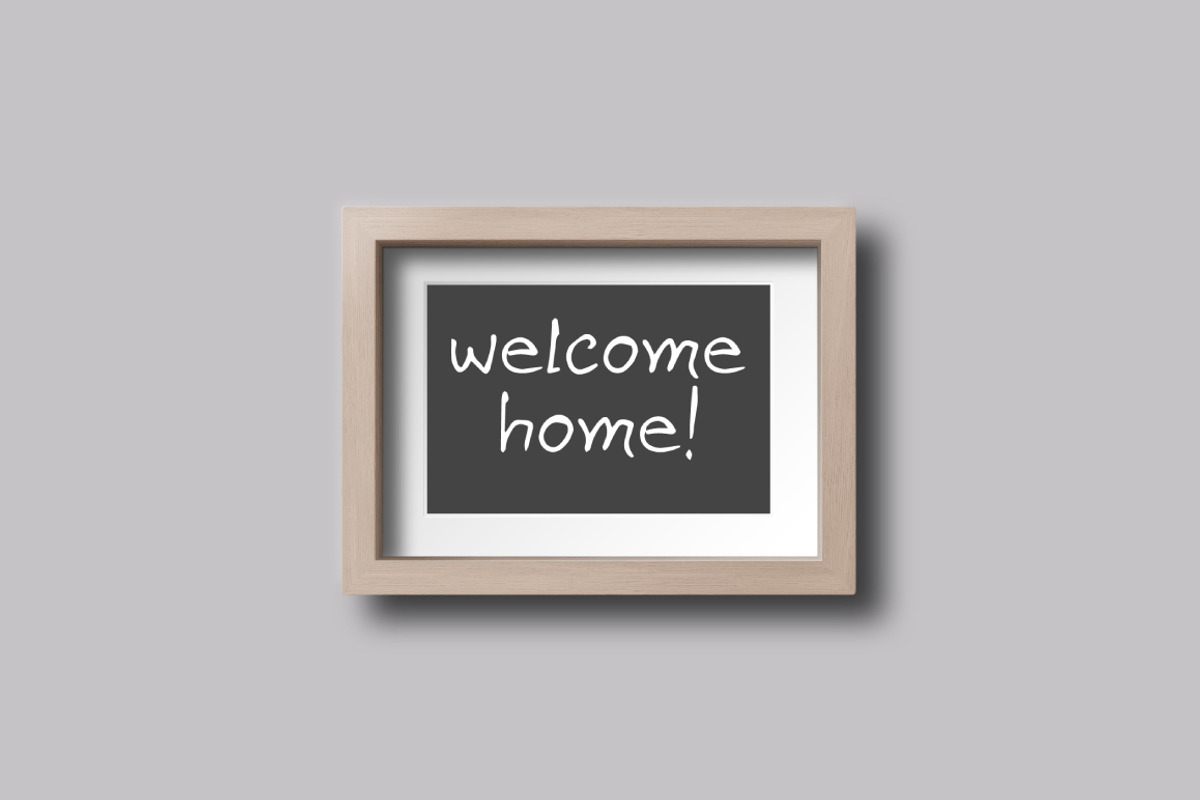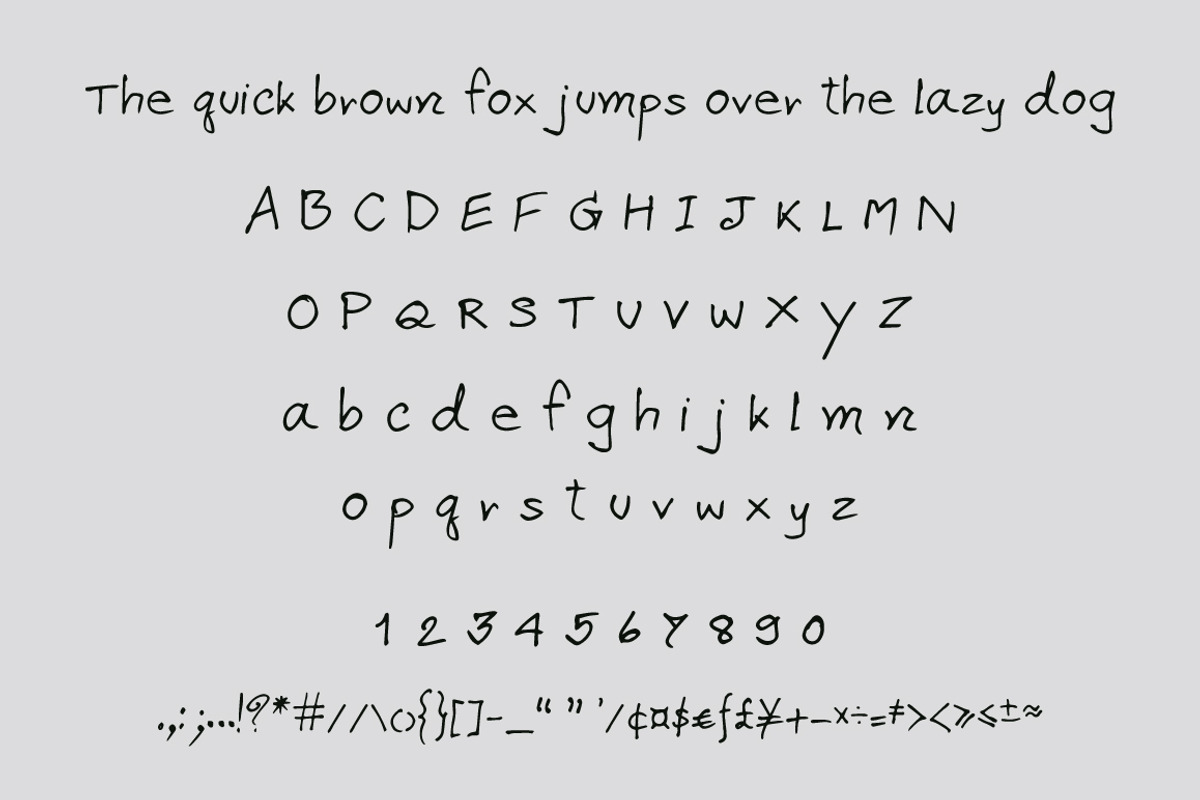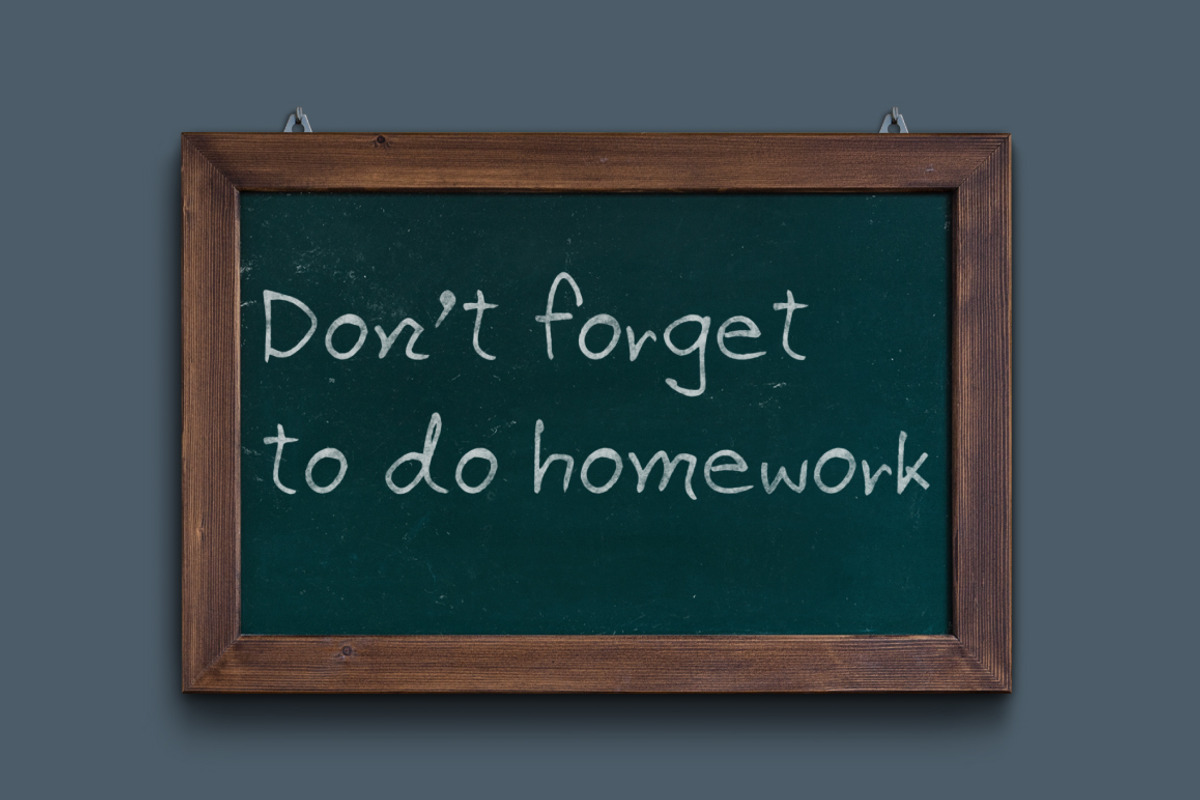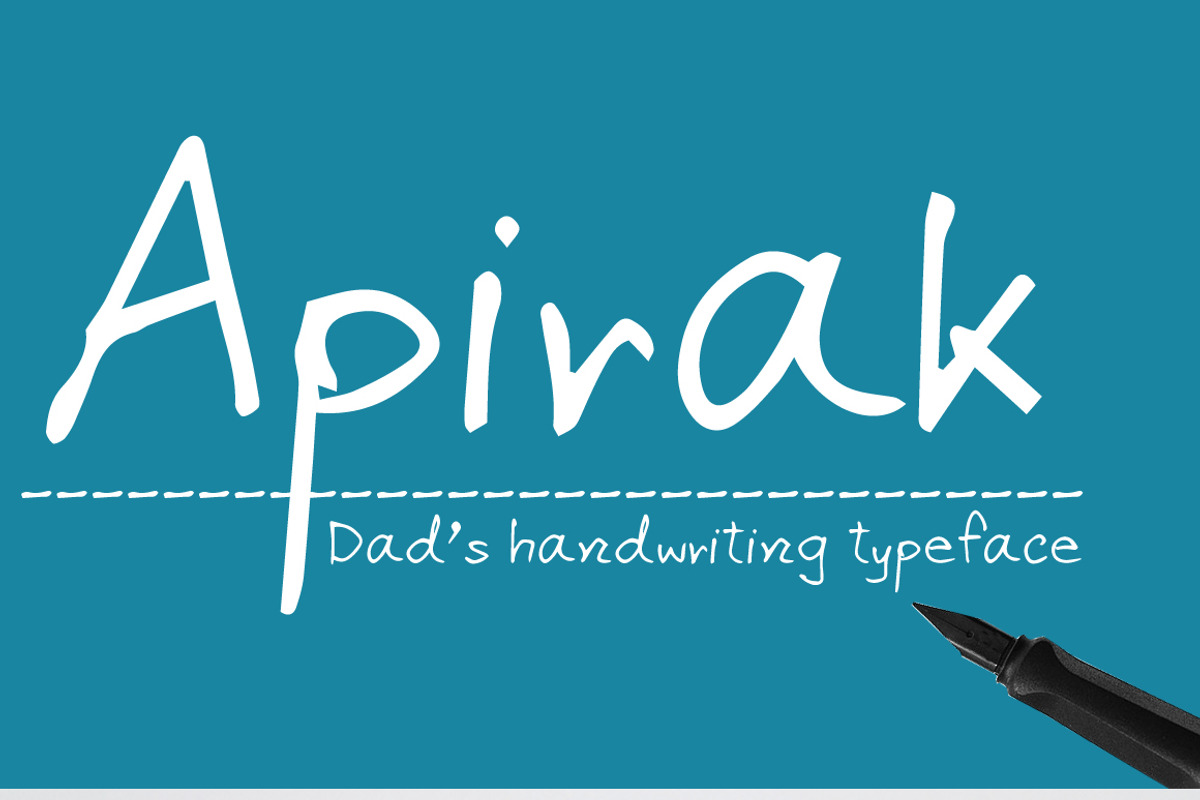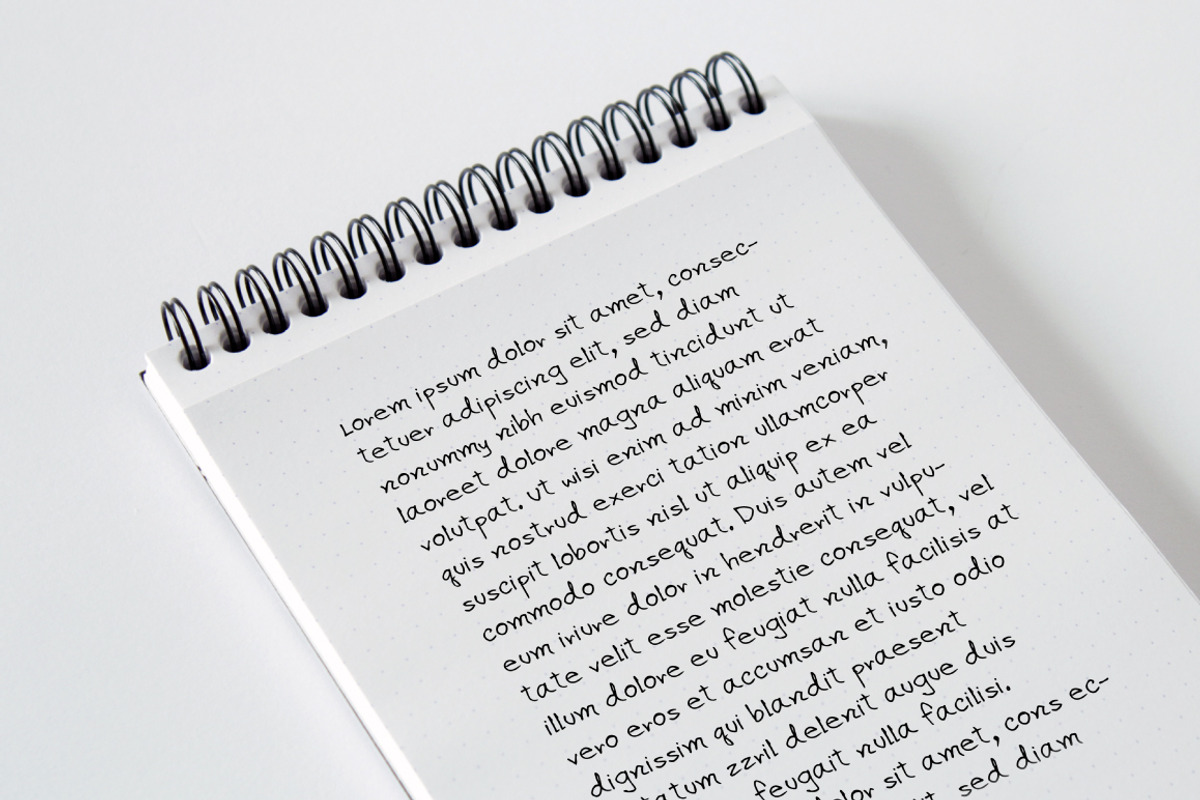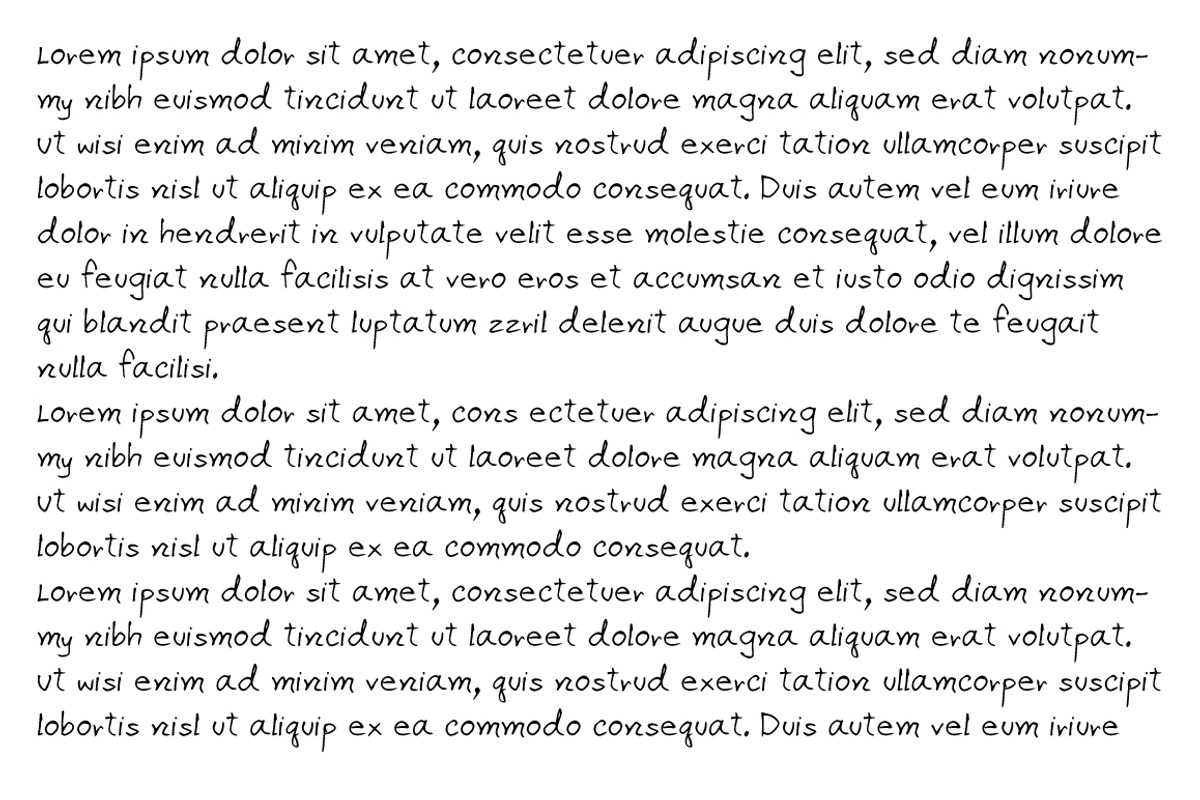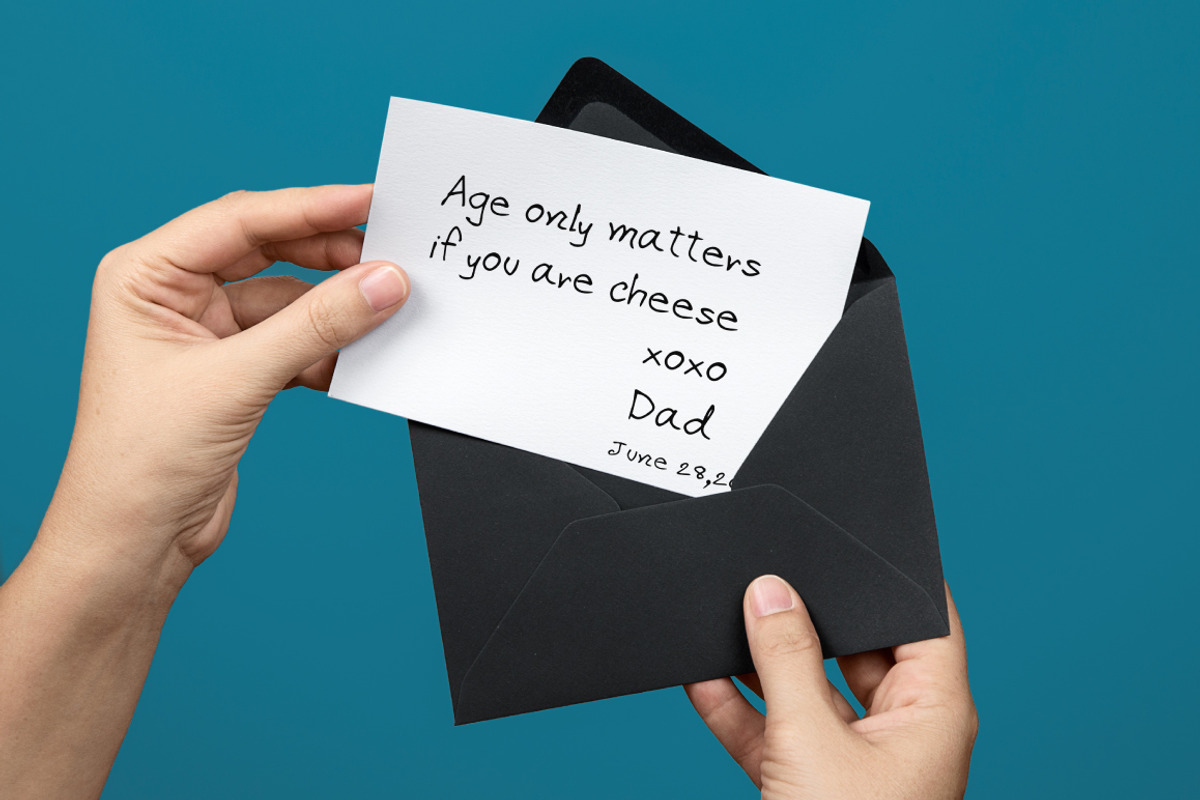
Apirak Handwriting Typeface
Apirak is a handwriting typeface written using ball point pen. This easy-to-read font was designed base on my dad's handwriting.
Apirak come in standard English characters(A-Z, a-z), numbers(0-9) and 44 Symbol&Punctuations.